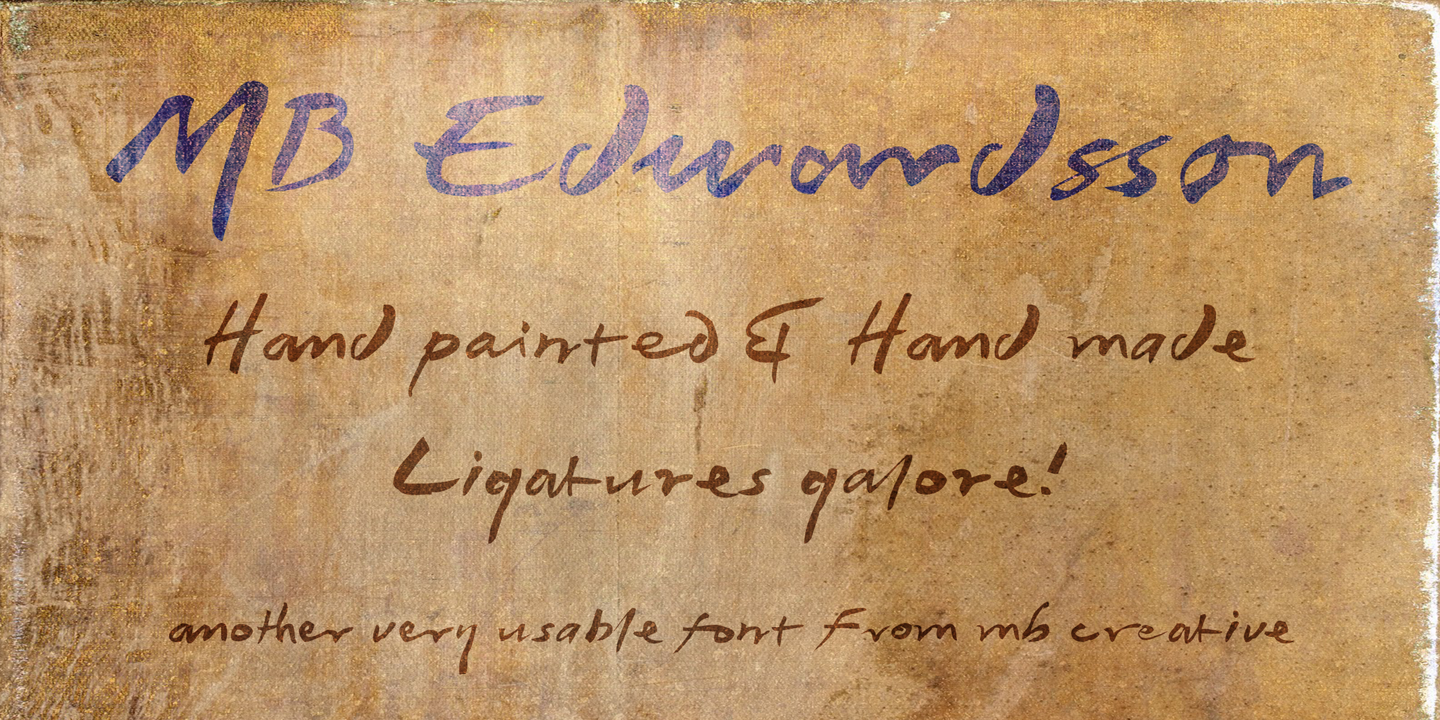
This distinctive typeface is an excellent choice for projects that evoke a sense of vintage craftsmanship, authentic hand-drawn charm, and a touch of rugged individuality. Imagine it gracing the labels of artisanal spirits, providing a rustic yet refined feel to craft brewery branding, or adding an old-world charm to bespoke product packaging. MB Edwardsson Font is also perfectly suited for designing unique restaurant menus, creating distinctive logos for small businesses with a handcrafted appeal, or crafting engaging headlines for outdoor adventure brands. Its textured appearance and organic forms make it an ideal option for any design seeking to convey heritage, authenticity, and a welcoming, personalized touch, such as coffee shop signage, custom apparel, or farm-to-table marketing materials.
What makes MB Edwardsson Font so exciting? It often features irregular outlines, subtle distressed textures, and a charmingly imperfect quality that mimics the look of hand-stamped or painted lettering. This font doesn’t just convey text; it tells a story, imbued with the character and warmth of something genuinely crafted. It’s engineered to stand out in a world of polished digital fonts, offering a tangible, human touch that resonates with audiences seeking authenticity. The inherent warmth and approachable nature of its letterforms make it particularly effective for brands that champion tradition, craftsmanship, and a genuine connection to their roots. Its rustic elegance can evoke a sense of nostalgia and reliability, making it a favorite for brands that value sincerity and a bespoke feel.
The MB Edwardsson Font family typically offers a range of styles to enhance its versatility, allowing for various levels of visual expression and design complexity. You might find options such as Regular, Bold, and perhaps even a textured, rough, or inline version, each meticulously designed to retain the font's characteristic hand-drawn essence while providing different visual intensities. These variations enable designers to create layered and dynamic compositions, using different styles for primary headlines, subheadings, and even subtle background elements. The availability of multiple stylistic options ensures that MB Edwardsson Font can be seamlessly integrated into diverse design applications, from impactful branding campaigns to charming editorial layouts, all while maintaining its unique and memorable appeal.
Whether you're building a brand for a handcrafted product, designing an inviting restaurant experience, or simply need a typeface that speaks with warmth, authenticity, and a touch of vintage charm, MB Edwardsson Font Free Download is an outstanding choice. Its distinctive character and versatile nature will ensure your designs always leave a genuine and memorable impression.